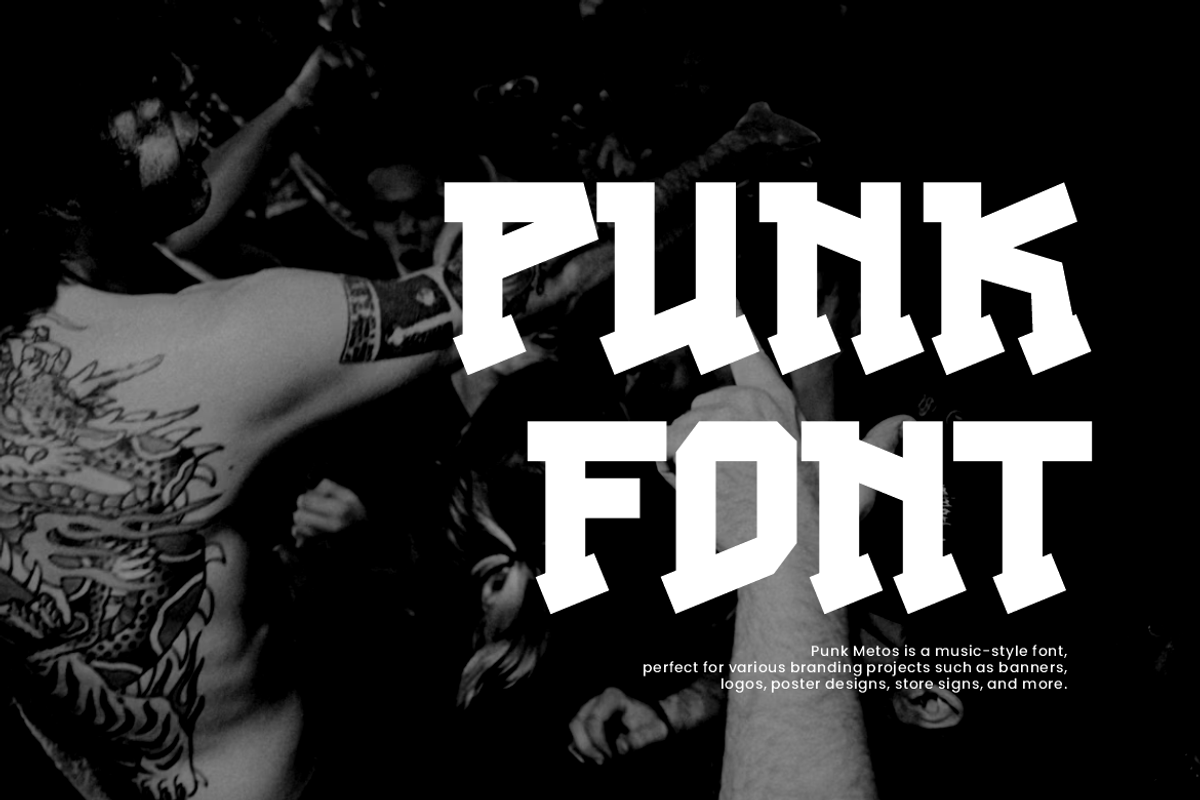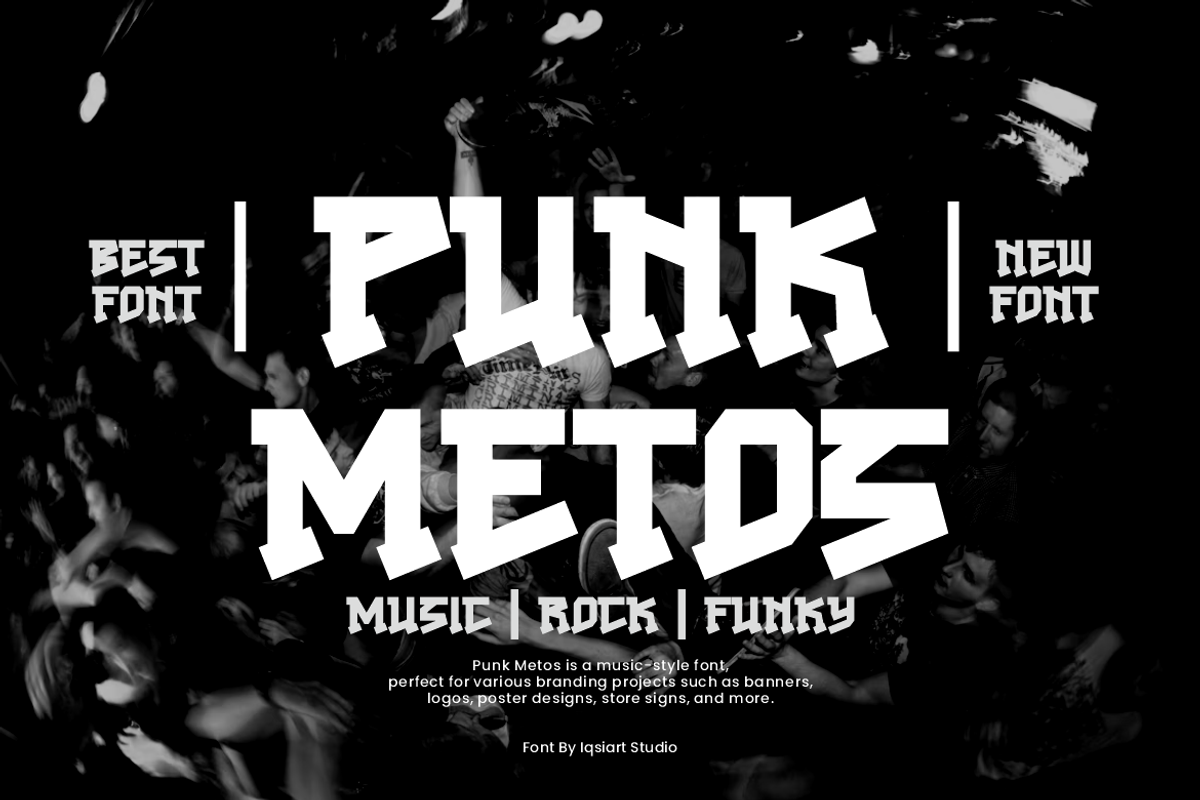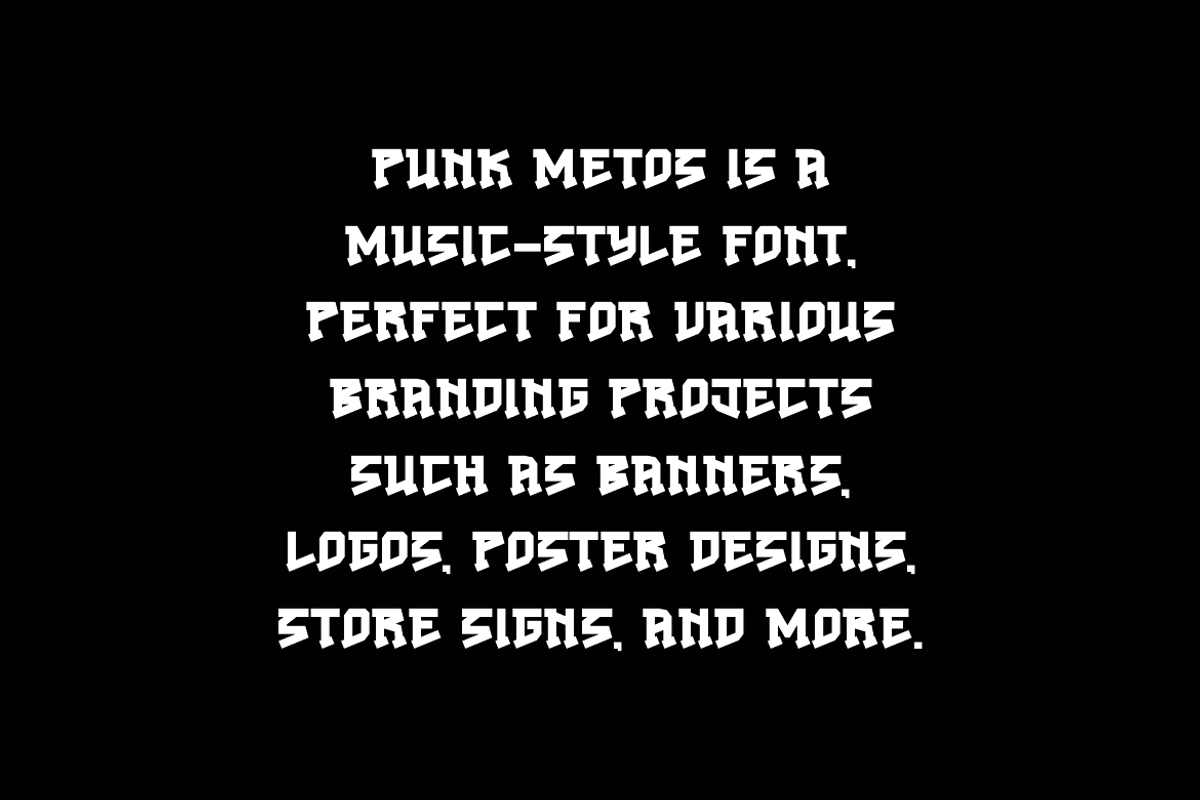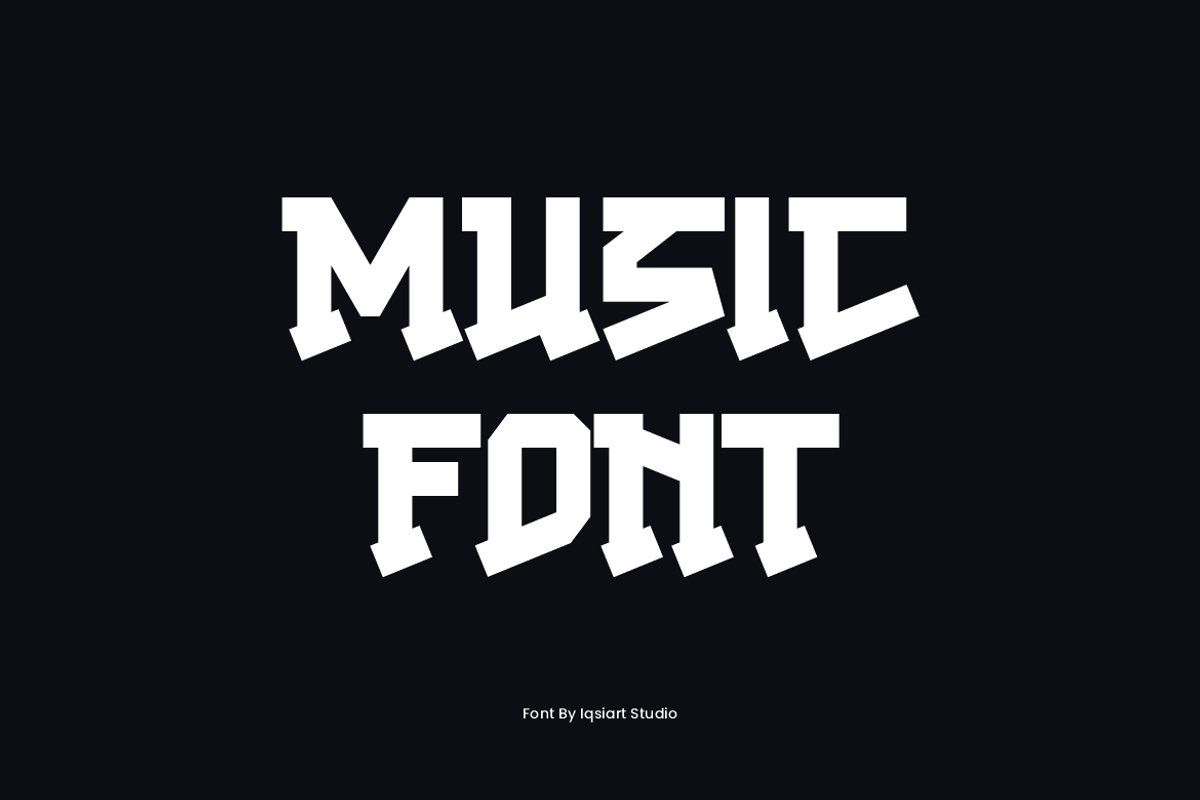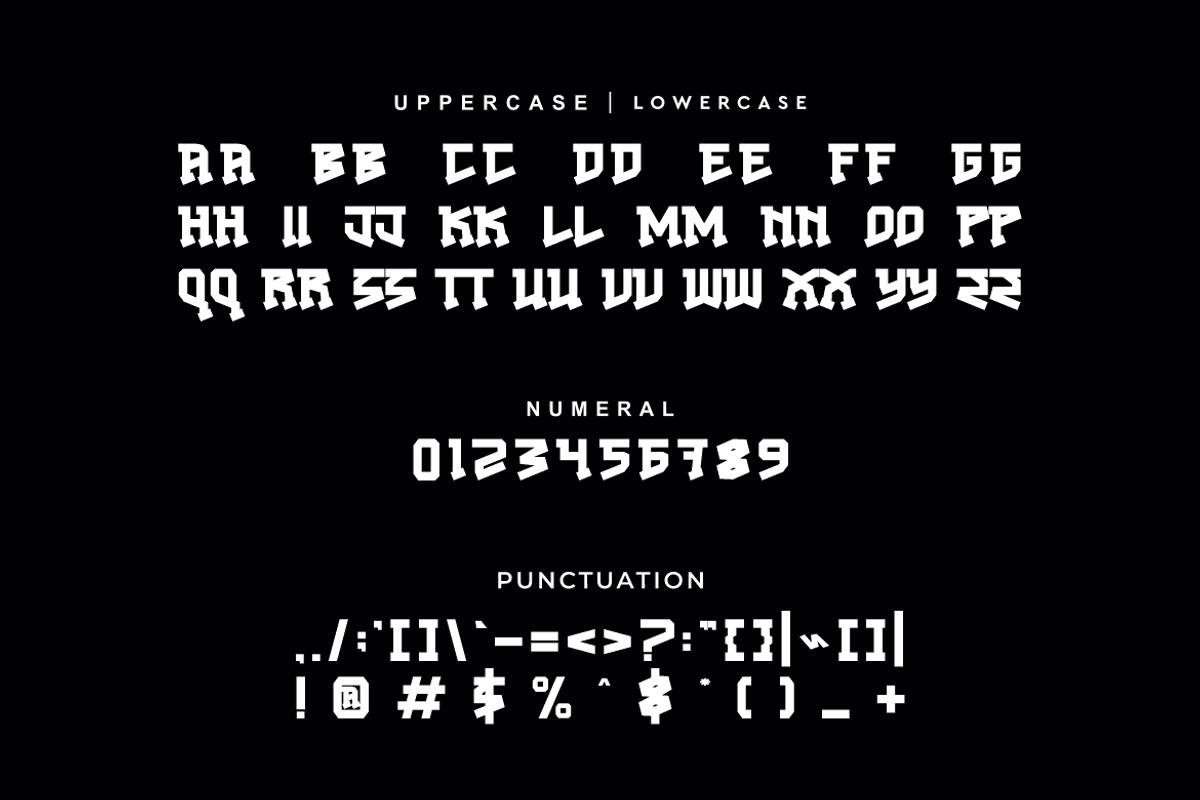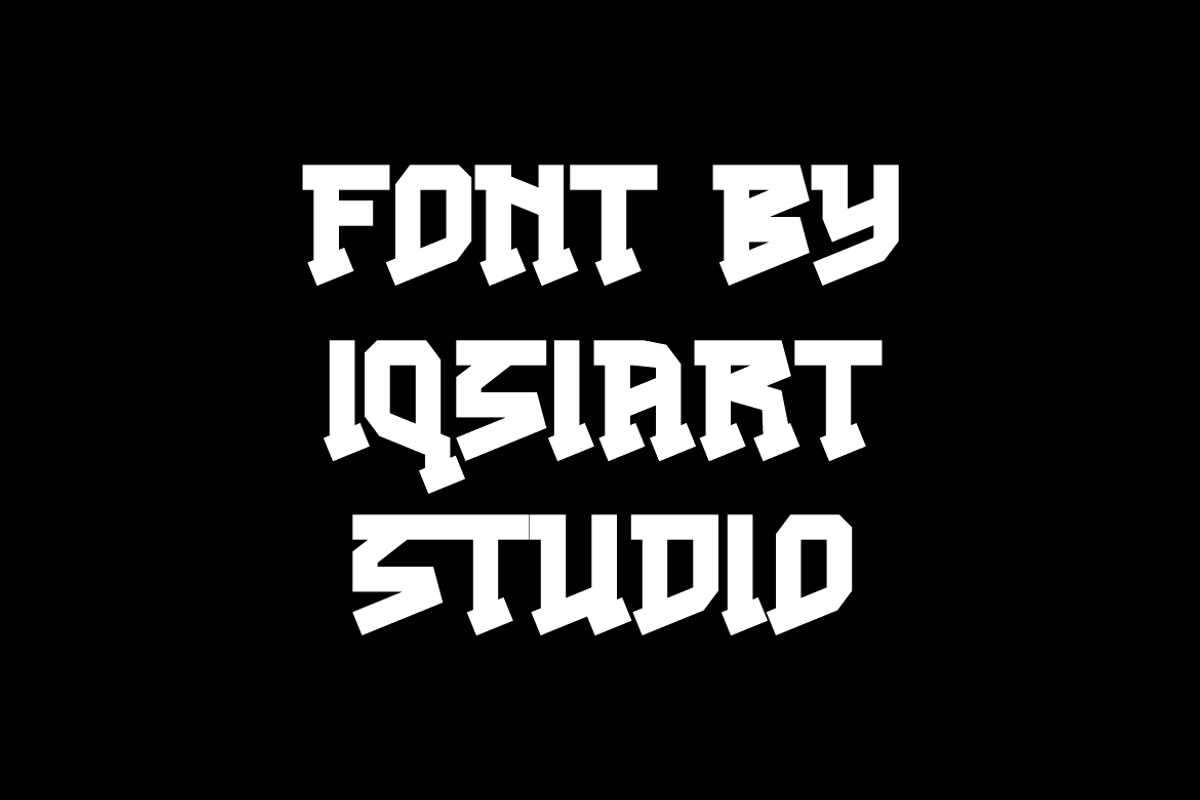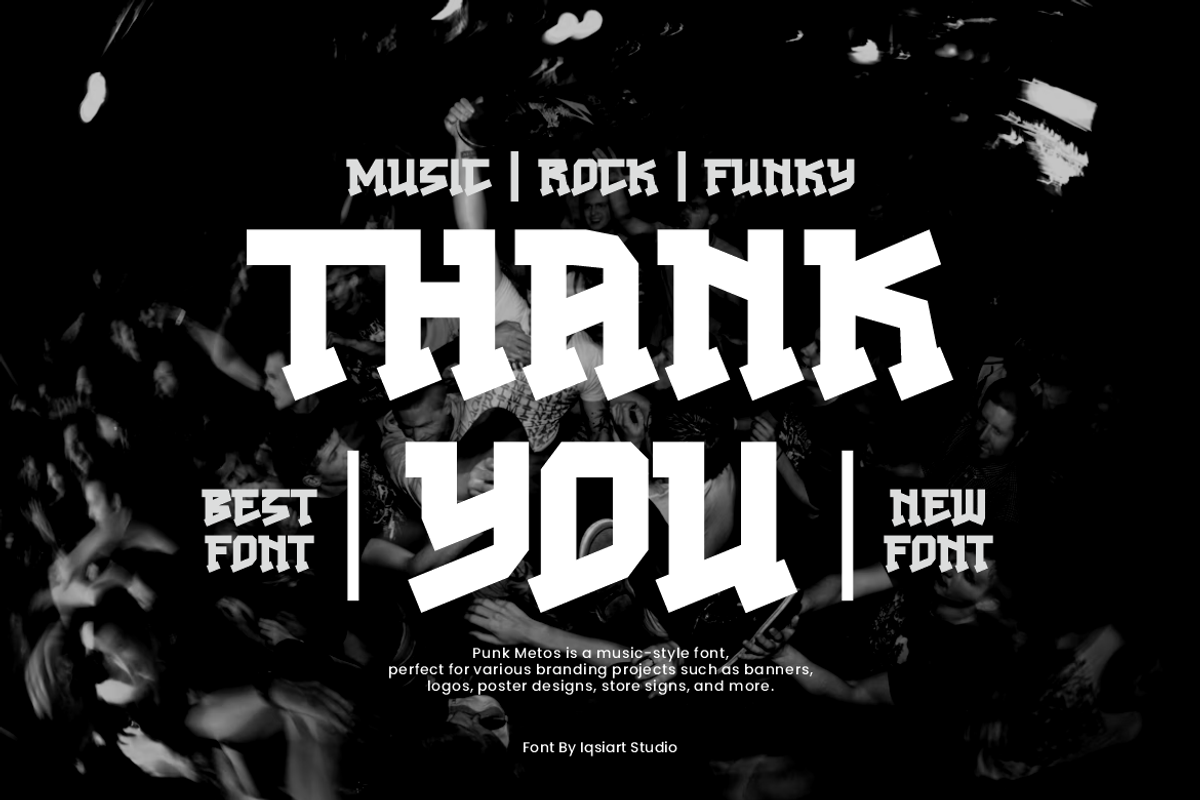
Punk Metos - Music Font
Punk Metos Font is a bold and authentic display typeface that suits a variety of design needs. We offer a wide range of themes and font styles — visit our profile to explore more and find the perfect style for your project. INCLUDED Regular + Punk Metos.OTF + Punk Metos.TTF + Punk Metos .WOFF Enjoy. Thank You!